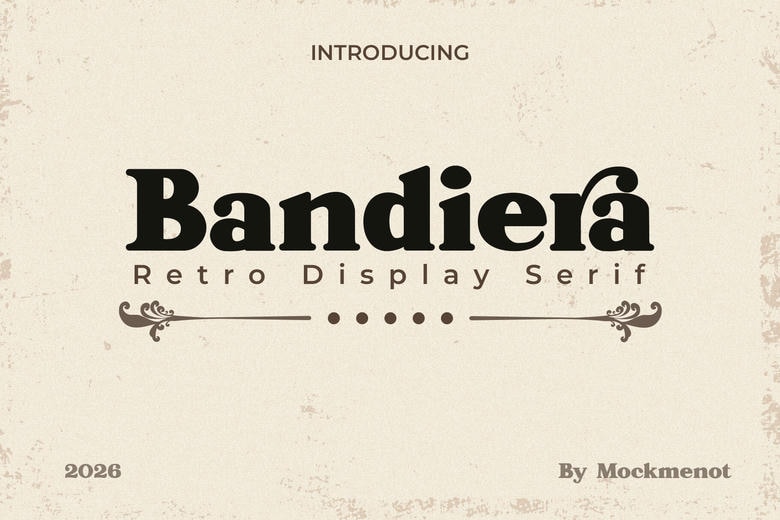
Bandiera Font
Bandiera Retro Serif Font is a bold vintage display typeface inspired by classic 1970s typography, retro packaging, old-school signage, and expressive editorial lettering. With its strong serifs, sturdy proportions, and nostalgic character,
This font works well for logos, branding, posters, packaging, headlines, apparel, labels, album covers, and social media graphics. The bold design helps your work stand out and still keeps a warm, handcrafted retro look.
Bandiera Retro Bold Serif Font